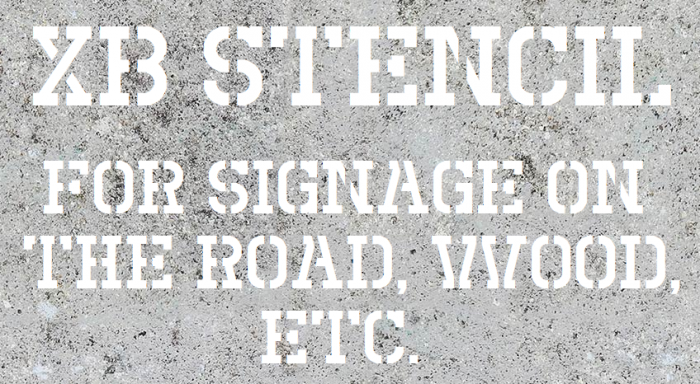
Great stencil. The W may not work as a single letter. 10/10
@Frodo7 I know the current W may not work as well. I can try an upside-down M...
Made W like M, but upside down... Original W still in sample...
Also changed $ so the stencil isn't as weak...